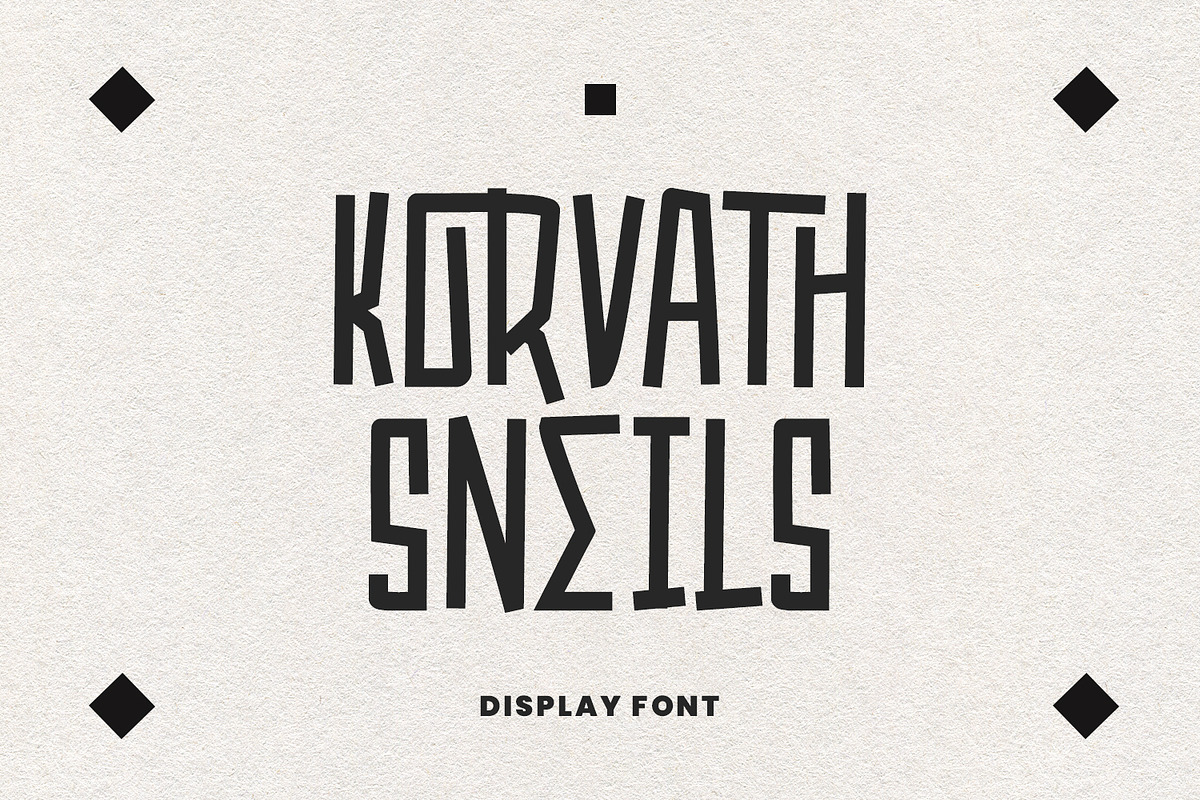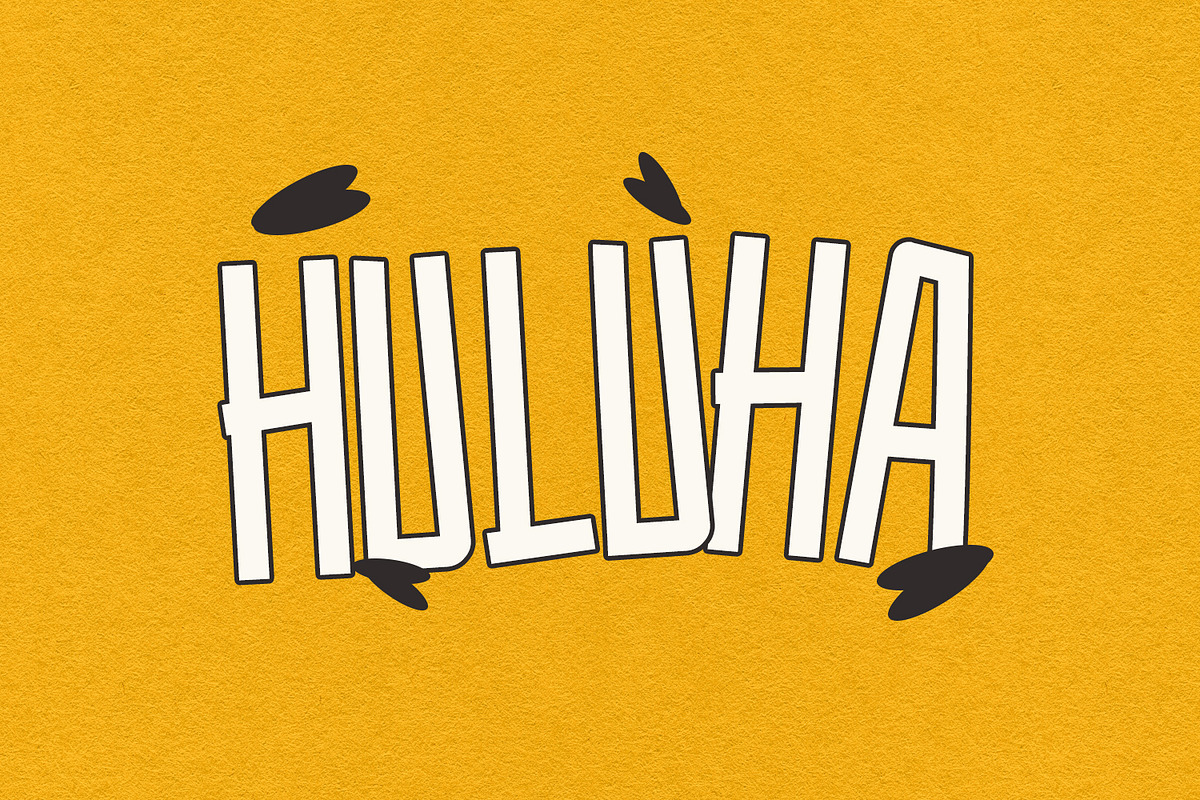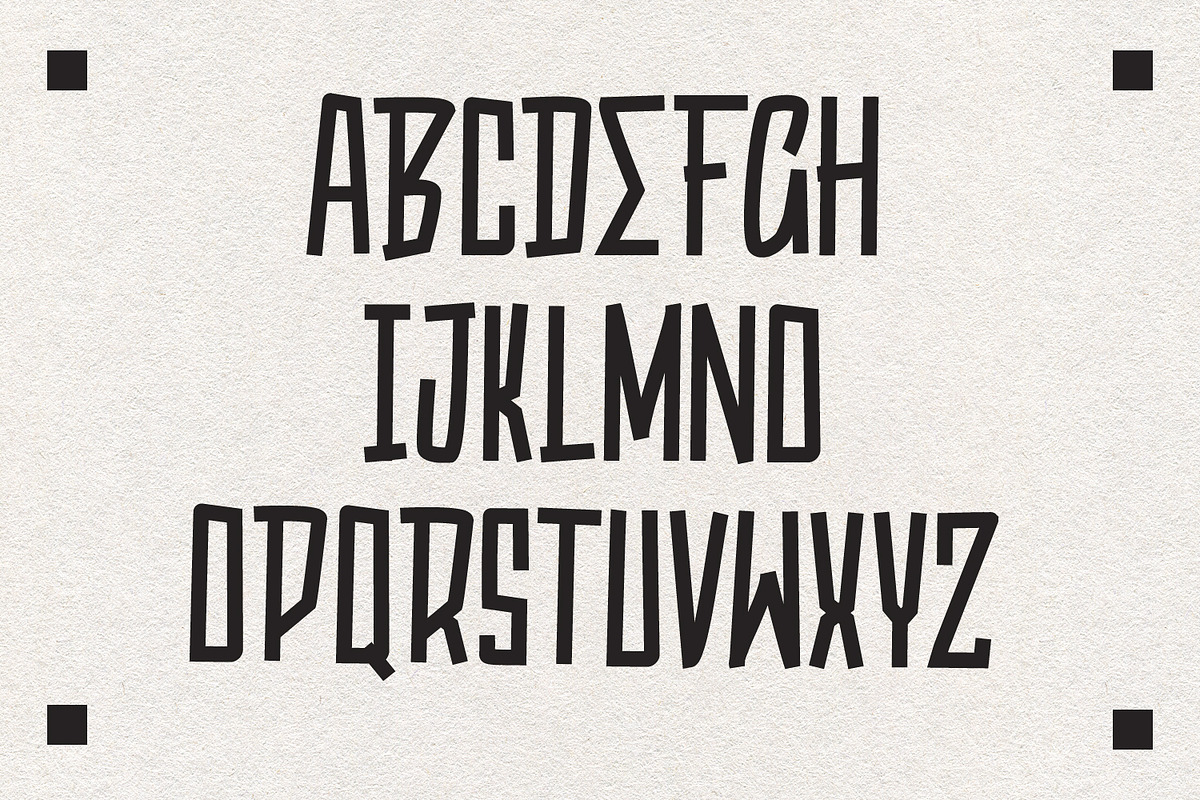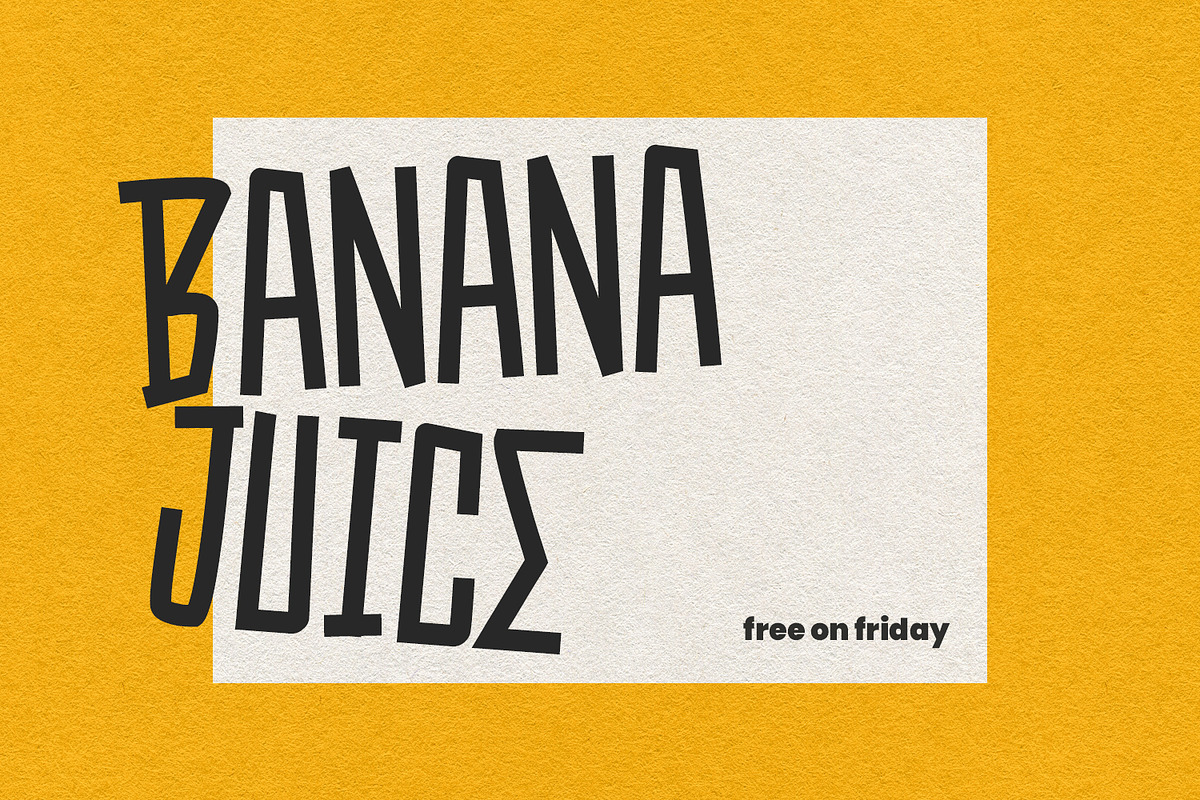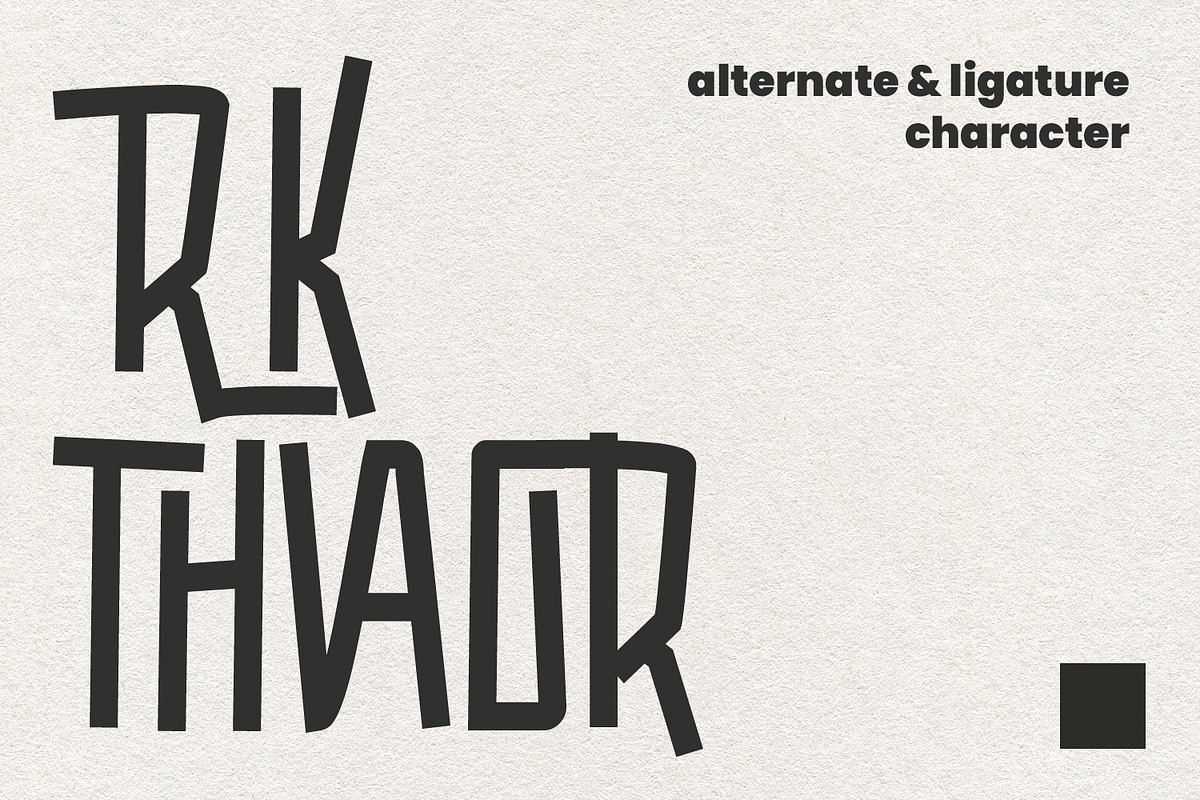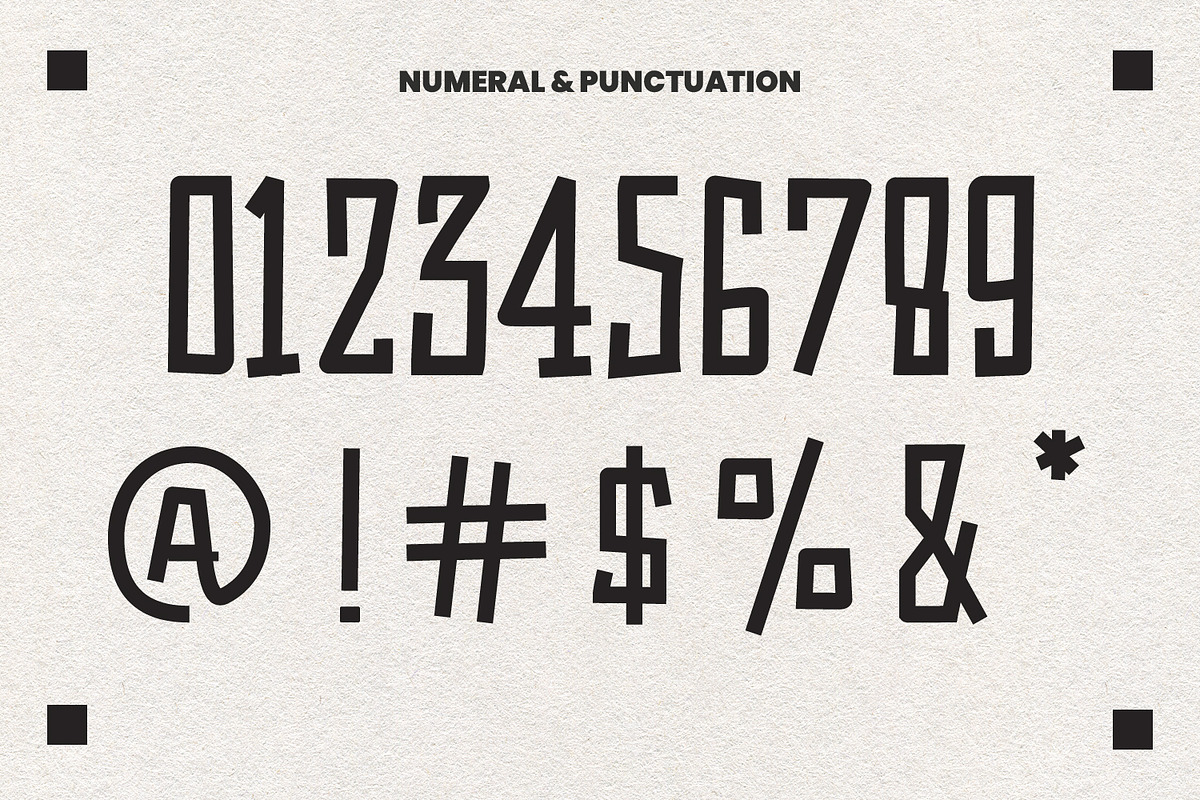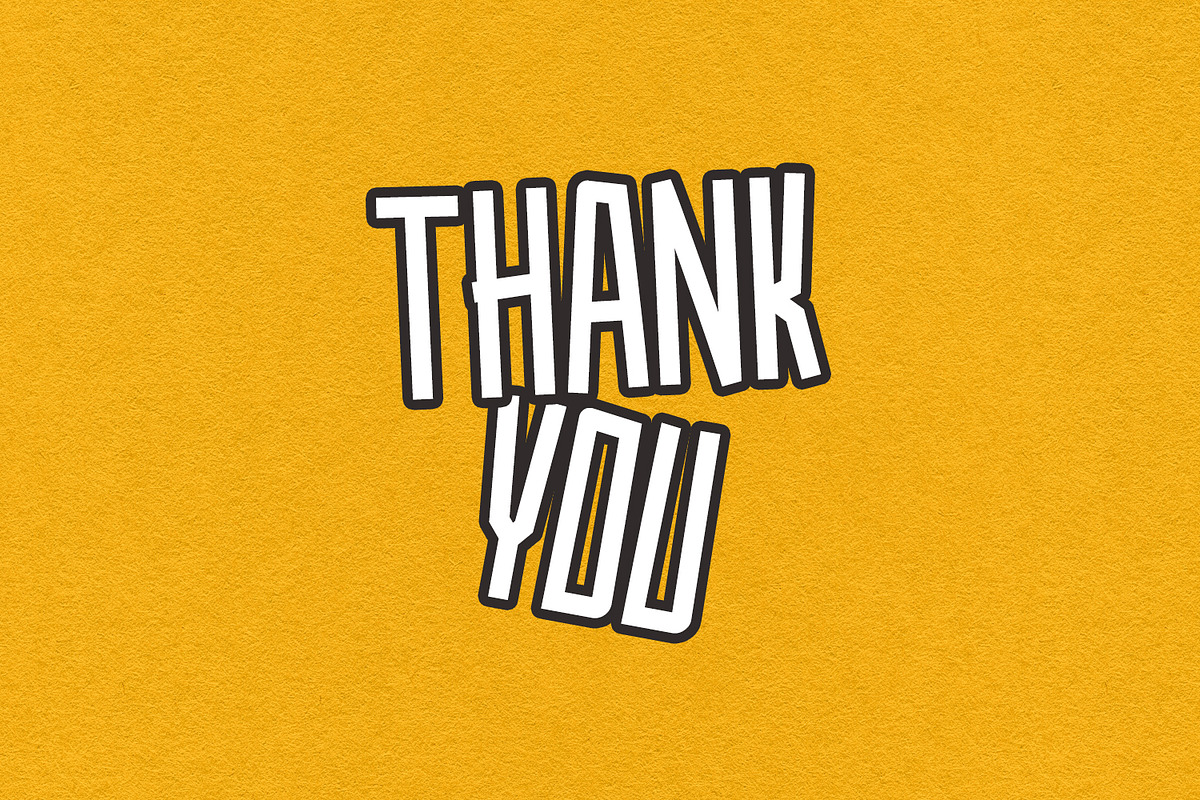
Korvath Sneils Display Font
Korvath Sneils is a fancy display style font. With fun character with a bit of alternate and ligature. To give you an extra creative work. Korvath Sneils font support multilingual more than 100+ language. This font is good for logo design, Social media, Movie Titles, Books Titles, a short text even a long text letter and good for your secondary text font with sans or serif. Make a stunning work with Korvath Sneils.